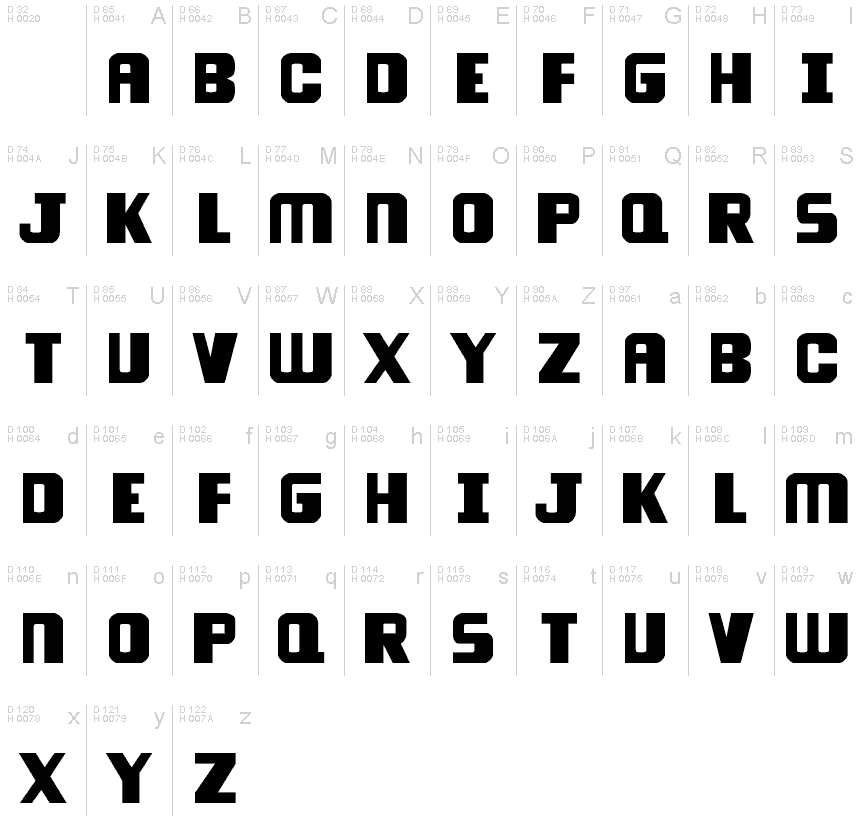
overload
Overload is a bold, expanded display font that exudes a distinct techno aesthetic. Crafted by Grafito Design, this striking typeface captures a sense of raw power and energy through its sharp, angular forms and robust construction.
The expanded width lends an impactful presence, while the bold weight imbues the characters with a strong, unyielding presence. Overload's unique style makes it a versatile choice for a range of design applications, from futuristic branding and packaging to attention-grabbing headlines and posters.
Its captivating visual impact makes it a compelling option for designers seeking to convey a sense of technological sophistication and modern dynamism.
This font was made for a logo ... I just have not ... the font itself is very simple but functional
The expanded width lends an impactful presence, while the bold weight imbues the characters with a strong, unyielding presence. Overload's unique style makes it a versatile choice for a range of design applications, from futuristic branding and packaging to attention-grabbing headlines and posters.
Its captivating visual impact makes it a compelling option for designers seeking to convey a sense of technological sophistication and modern dynamism.
This font was made for a logo ... I just have not ... the font itself is very simple but functional